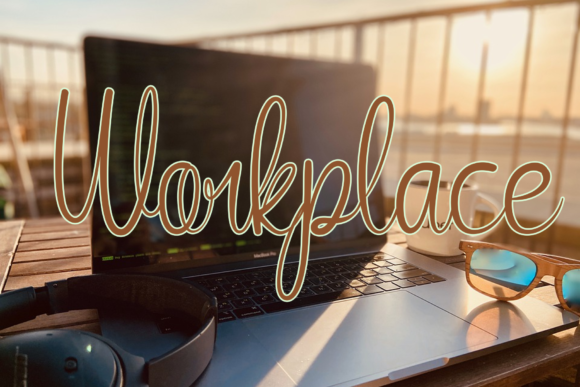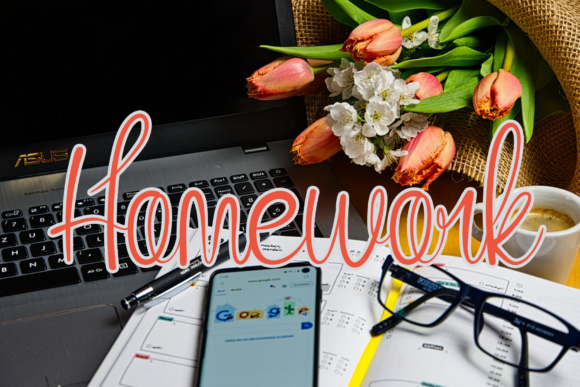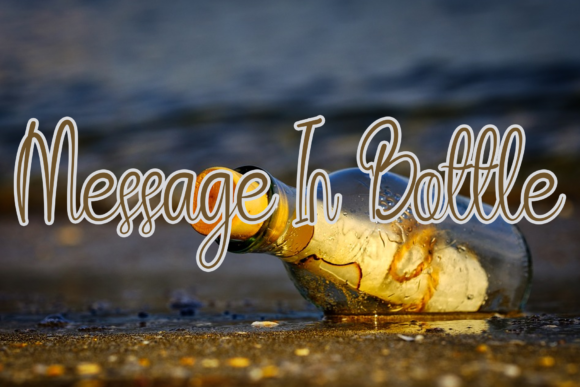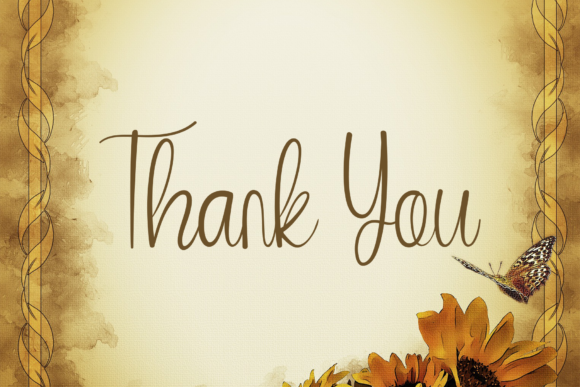
Sunflowers Font
About Sunflowers Font
Sunflowers is a lovely and delicate script font that exudes elegance and class. This font was particularly crafted for those who need a beautiful and refreshing look to their designs.